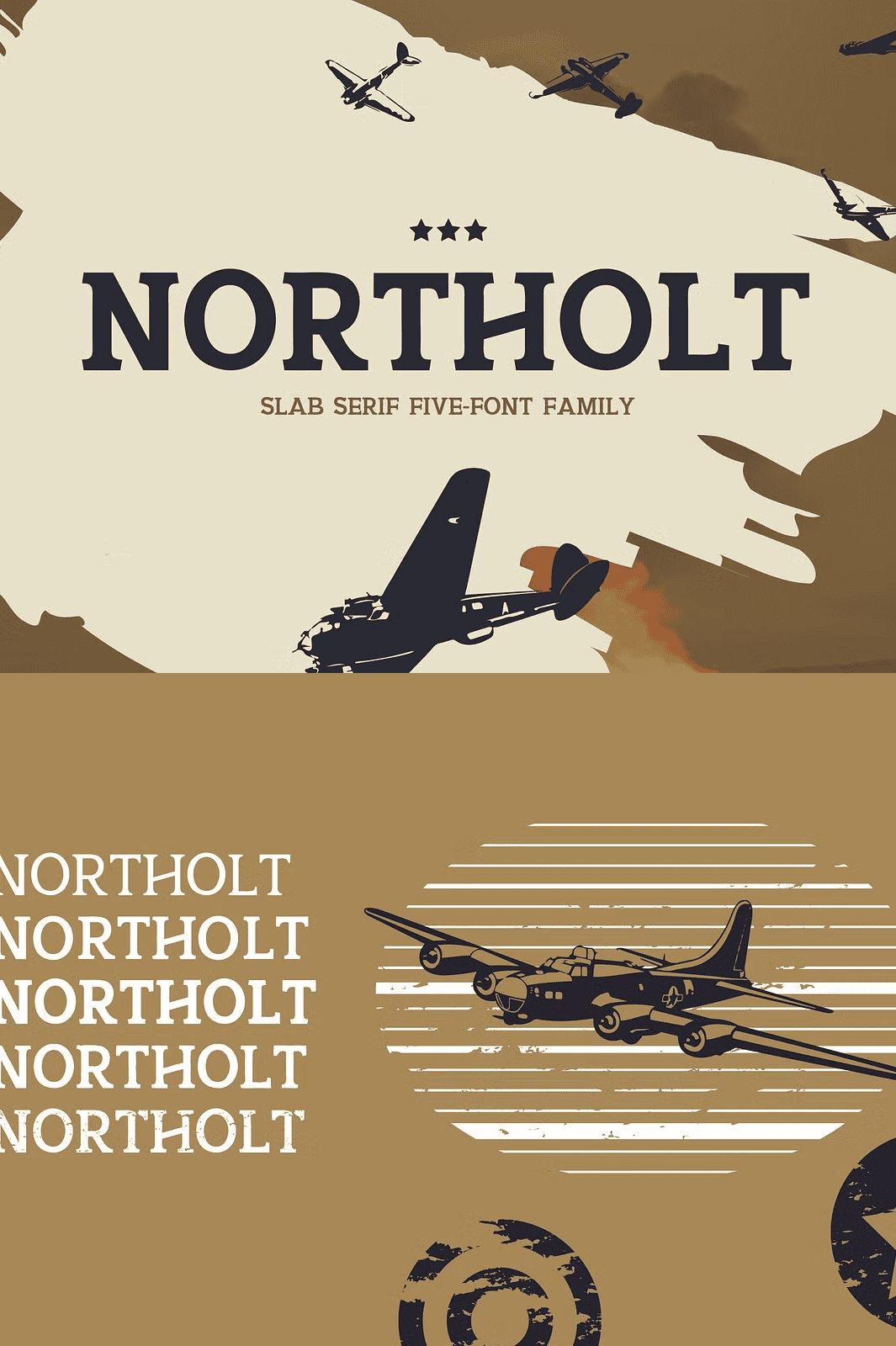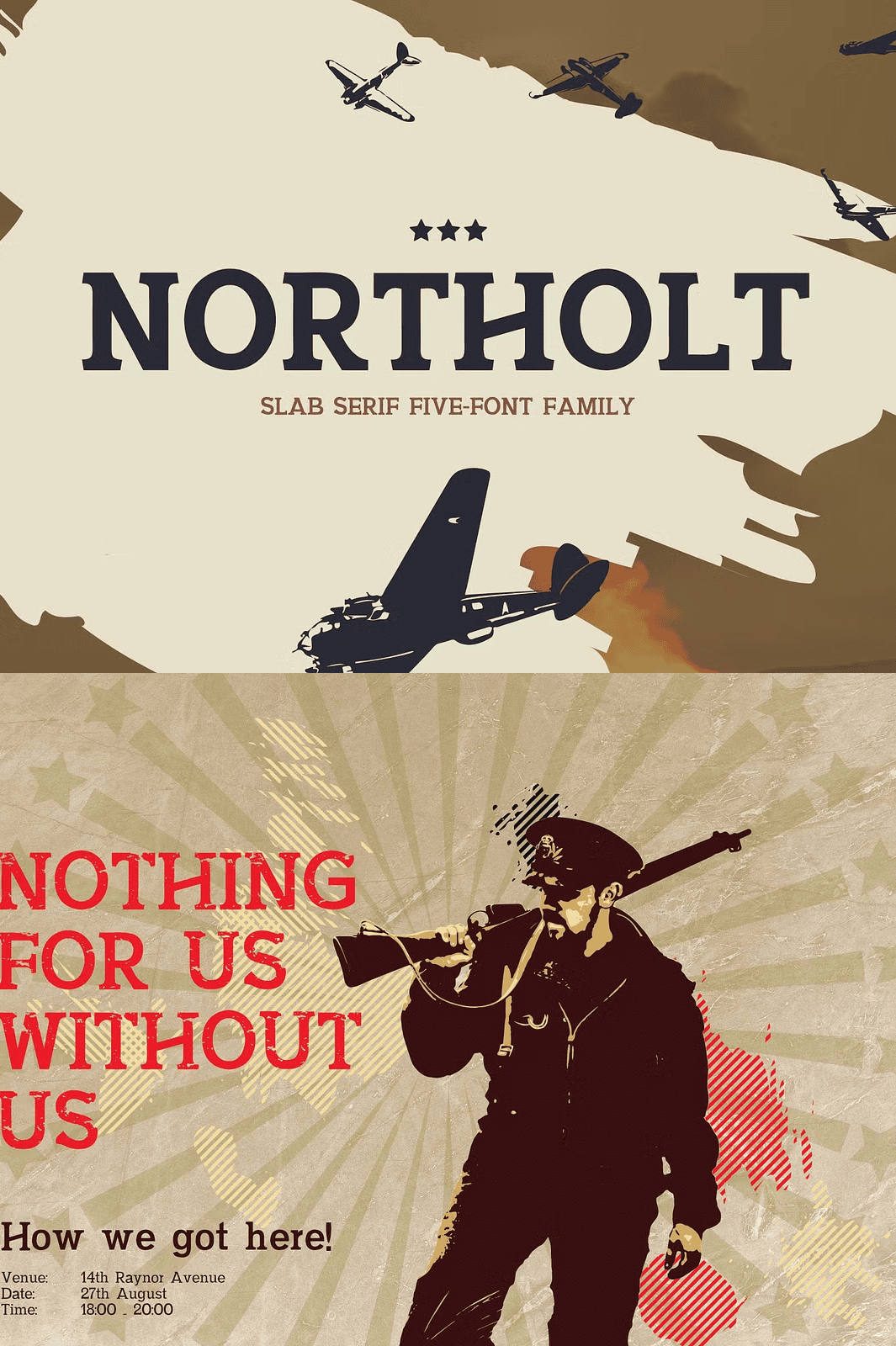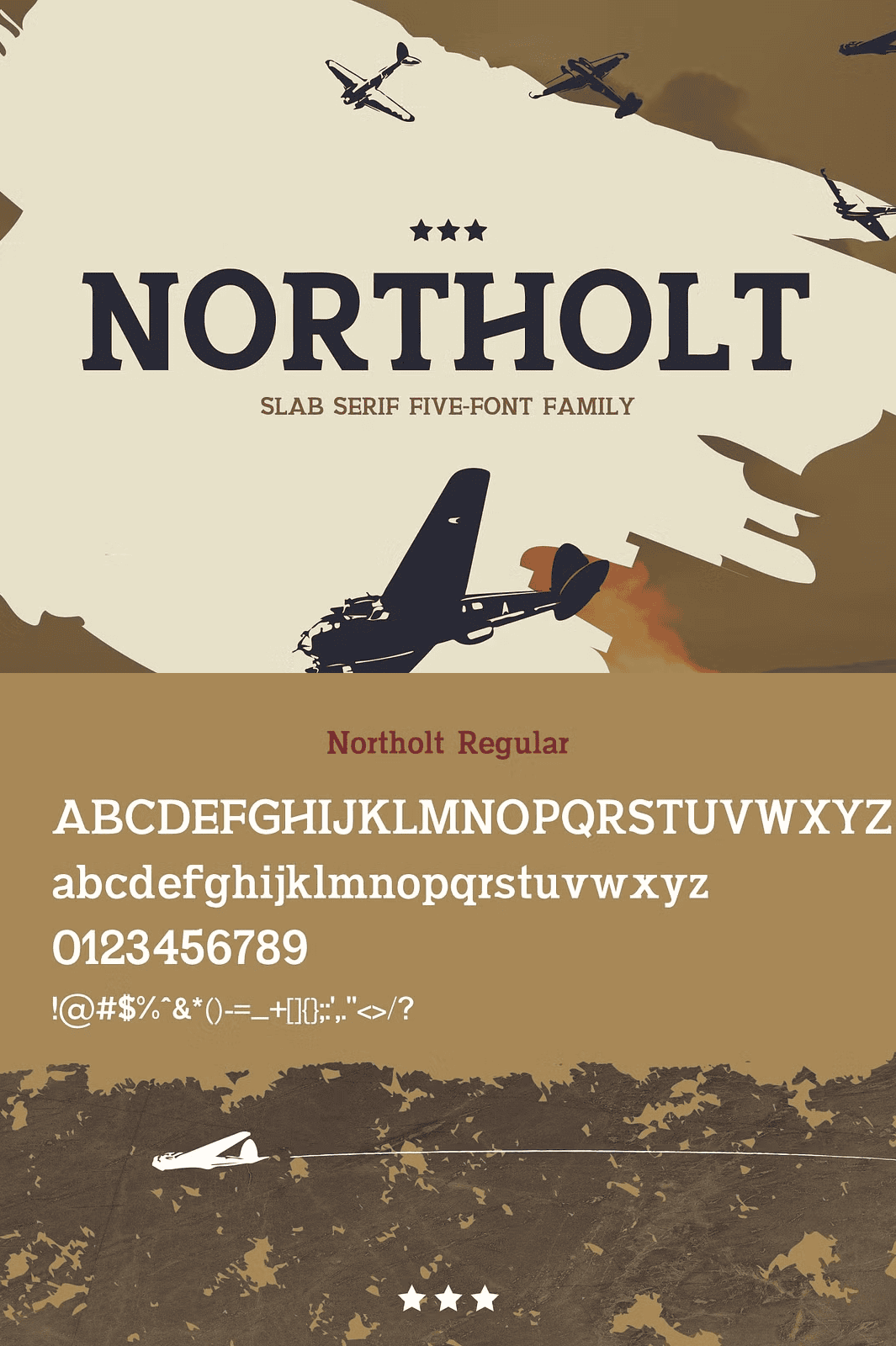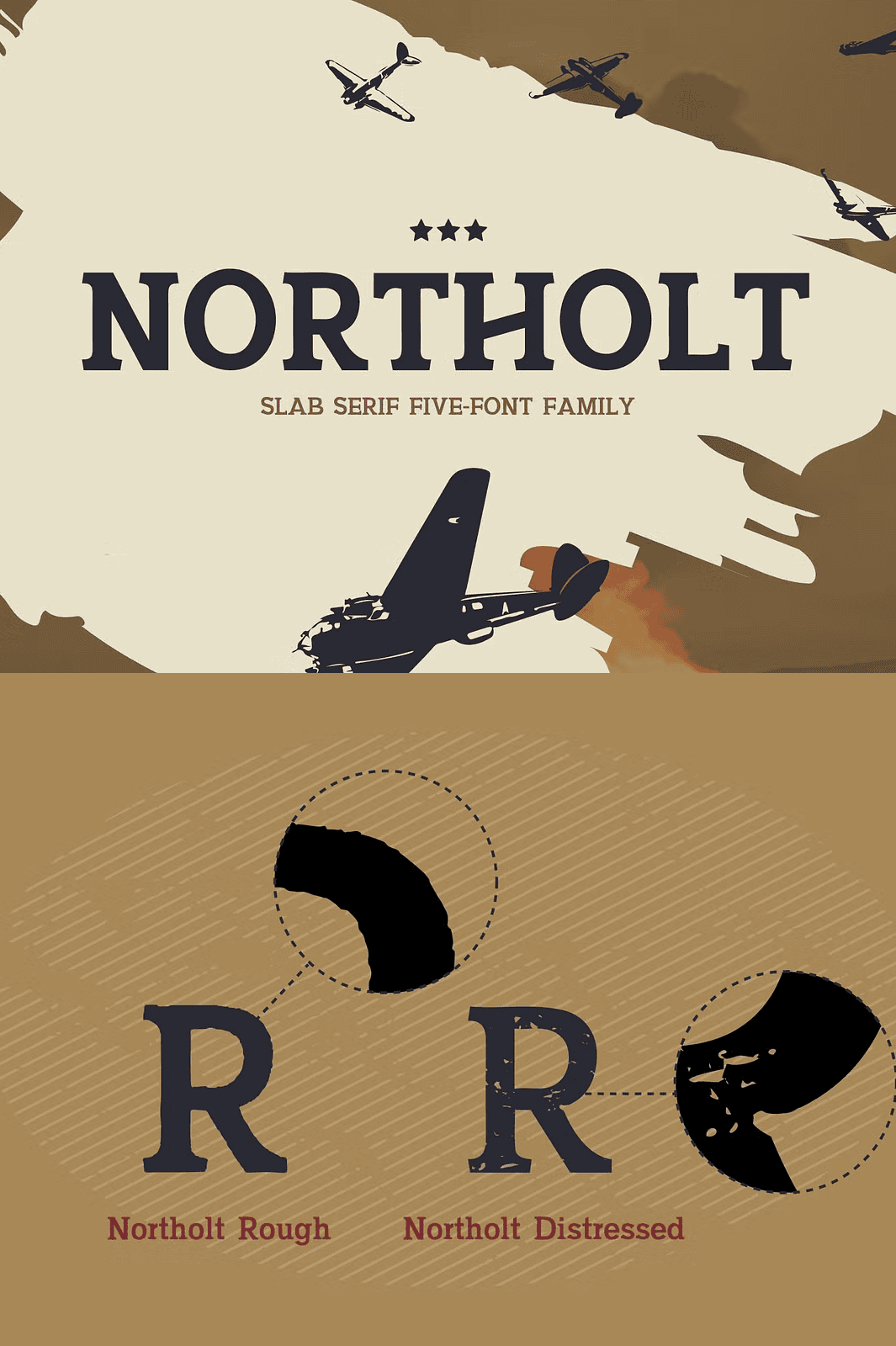
Forge Bold Design with a Story Rooted in Legacy
Channel the spirit of a storied past with **Northolt**, a powerful slab serif font family inspired by the rich military heritage of a town that shaped the creator’s childhood. Every stroke of this typeface echoes the strength, precision, and resilience of the historic airfield that once defined the region. Northolt isn’t just a font—it’s a tribute. Its bold forms and grounded structure are carefully crafted to convey authority, authenticity, and timeless character, making it ideal for projects that demand presence and narrative depth.
Unlock Versatility with Five Distinct Styles
Northolt offers five uniquely tailored variants, giving you unmatched control over your visual storytelling:
– **Northolt Thin** – For elegant, minimalist layouts and refined headlines
– **Northolt Regular** – The balanced foundation for clean, professional typographic work
– **Northolt Bold** – To command attention in headlines, posters, and branding
– **Northolt Distressed** – For vintage edits, retro posters, and gritty editorial projects
– **Northolt Rough** – To achieve raw, textured visuals with handmade authenticity
Whether you’re designing a historical document, a fashion collection, a music album cover, or a military-themed campaign, Northolt adapts seamlessly to your vision with precision and power.
Designed for Global Creativity with Full Multilingual Support
No design should be limited by language. Northolt includes comprehensive international character support, ensuring your message reaches audiences everywhere. It features:
– Full accented characters for European languages (French, Spanish, German, Italian, etc.)
– Extended Latin-1 and Latin-2 character sets
– Special symbols and punctuations for clean, professional layout
– Consistent spacing and glyph alignment across all characters
From Prague to Buenos Aires, from Tokyo to Oslo, Northolt delivers clarity and polish, no matter where your project travels.
Unleash Your Creative Potential with Full Feature Set
Northolt isn’t just a font—it’s a complete design toolkit. It includes:
– **True lowercase and uppercase glyphs** with consistent weight and spacing
– **Advanced OpenType features** for ligatures and stylistic alternates
– **Numerals, punctuation, and currency symbols** for seamless integration
– **Case-sensitive forms** for professional typographic control
– **Multilingual support** with international character coverage
Whether you’re building a brand identity or designing an experimental zine, Northolt gives you the tools to create with precision and confidence.
Perfect for a Wide Range of Design Applications
Northolt shines in projects that thrive on strength, emotion, and historical depth:
– **Vintage and retro branding** for apparel, music, and lifestyle brands
– **Military and aviation-themed campaigns** or documentaries
– **Editorial design** including magazines, newspapers, and book covers
– **Album art and concert posters** with bold visual impact
– **Website headers and display text** with immediate presence
Let Northolt carry your story with the weight it deserves.